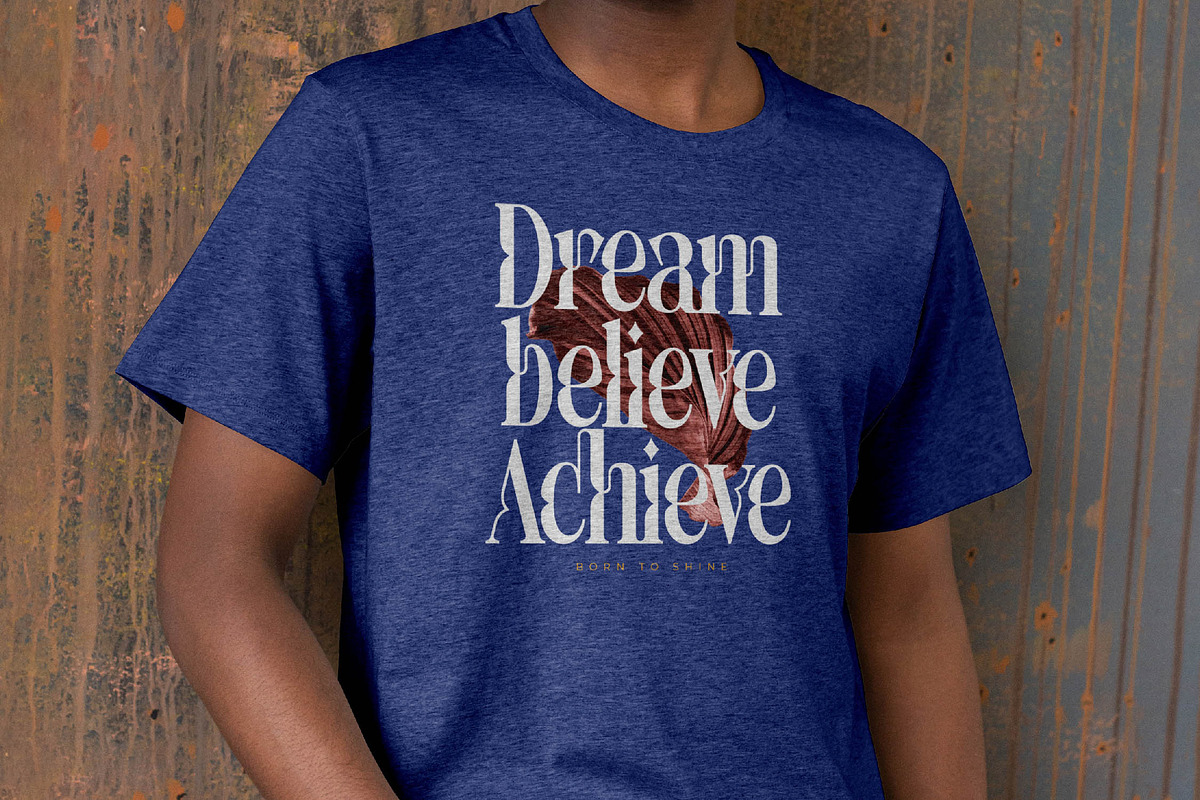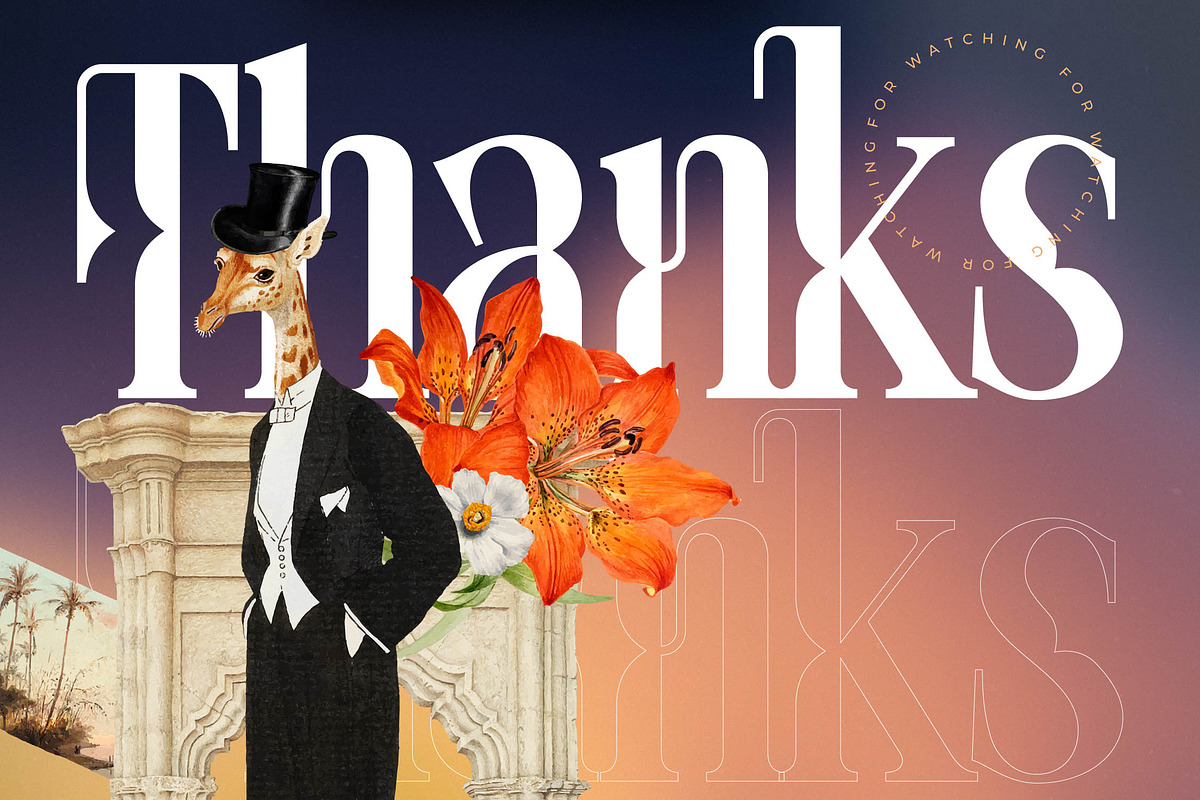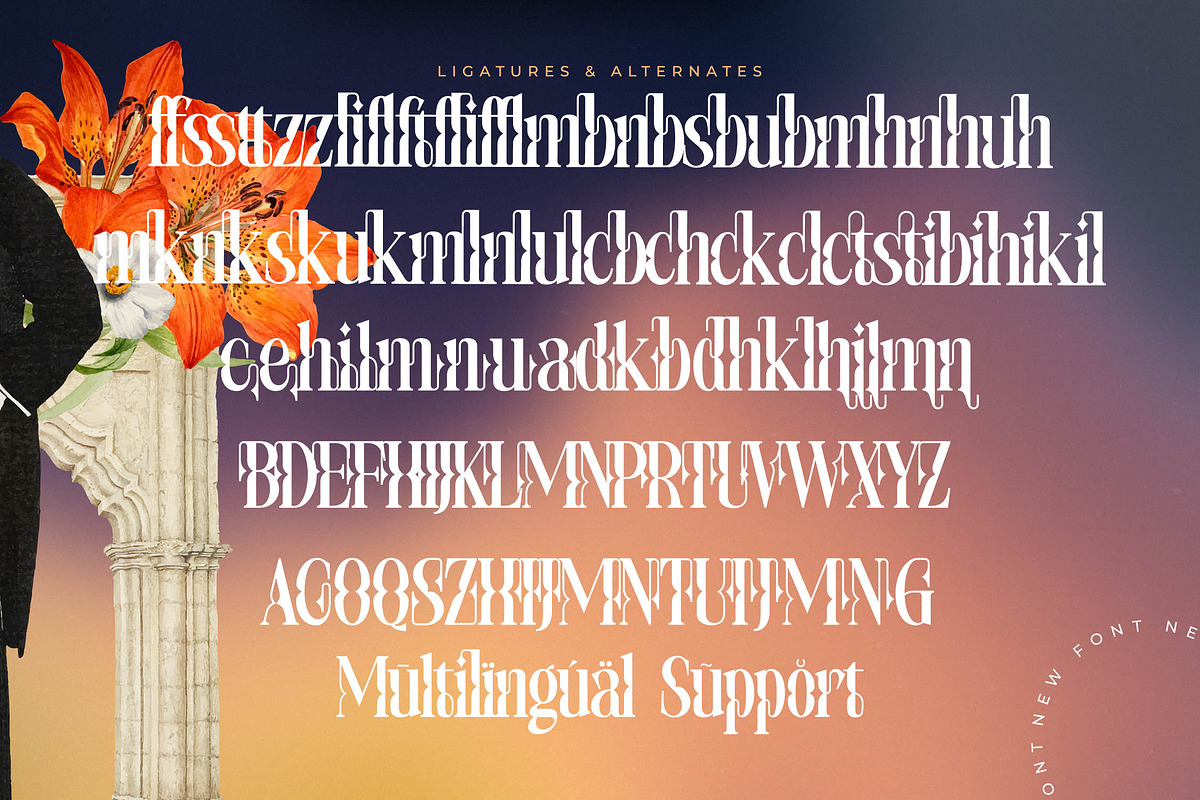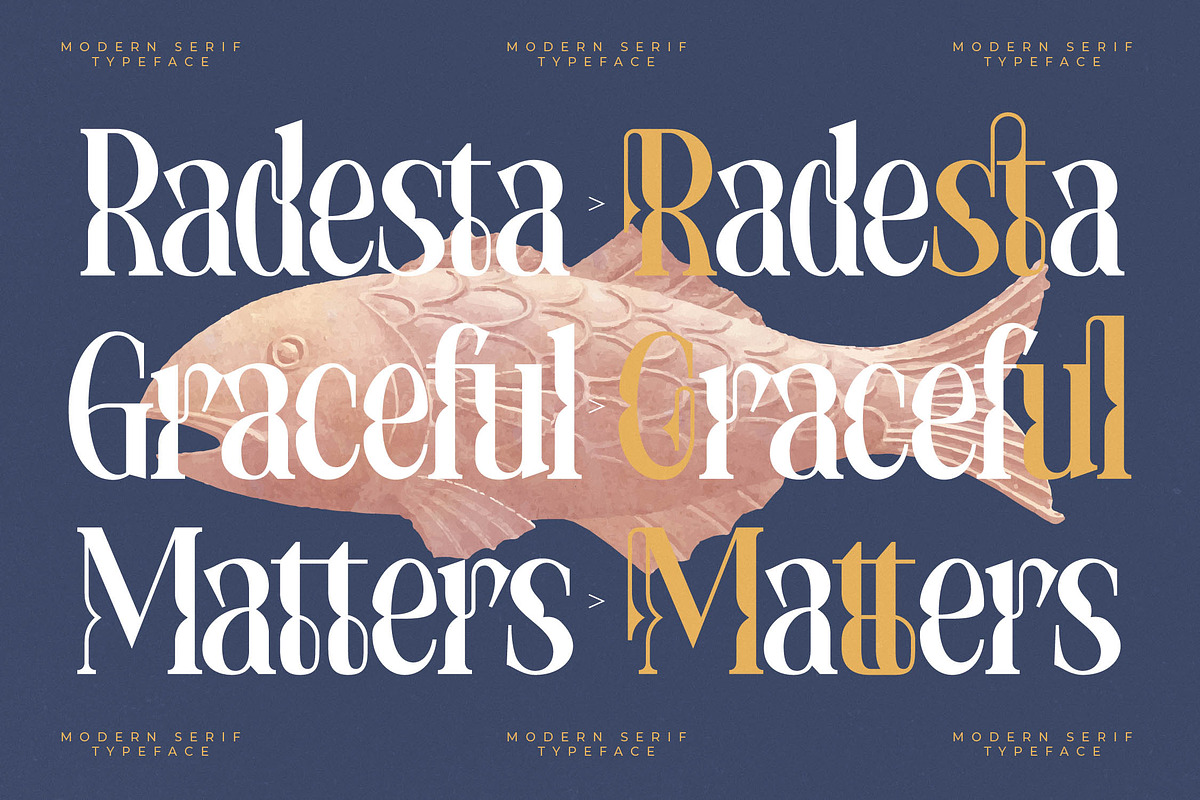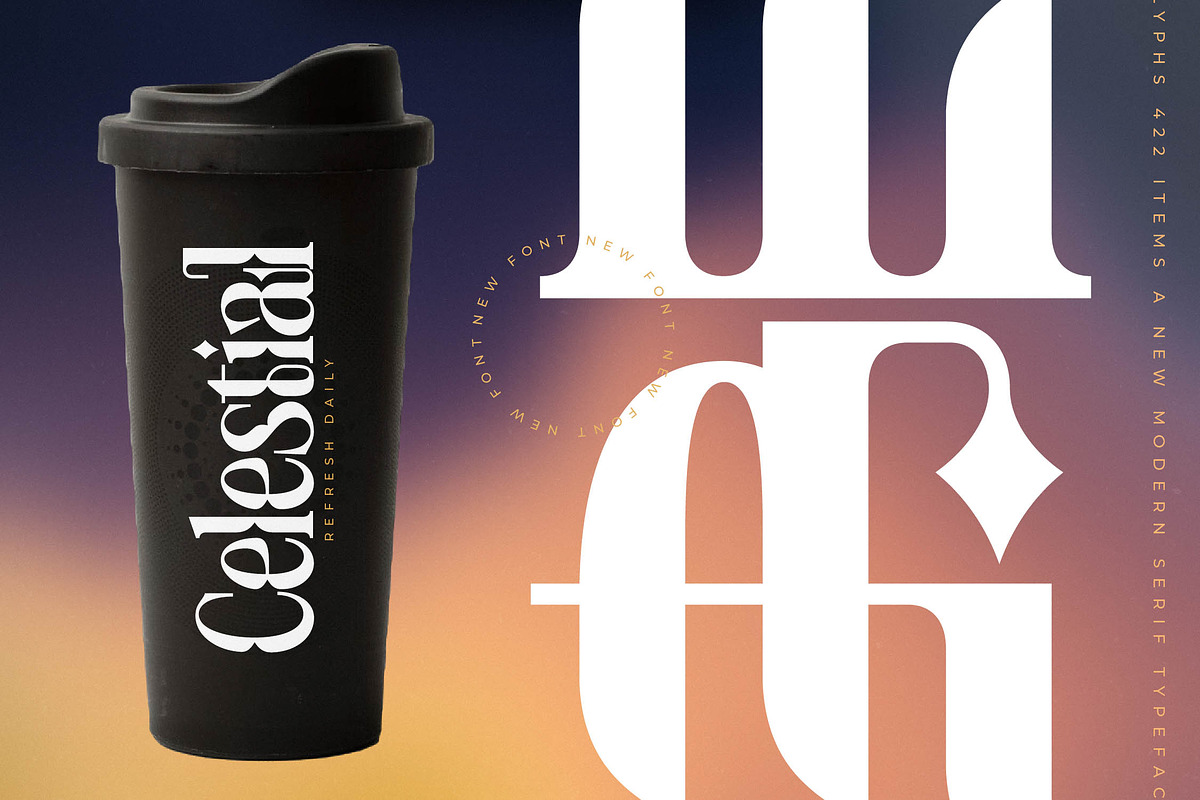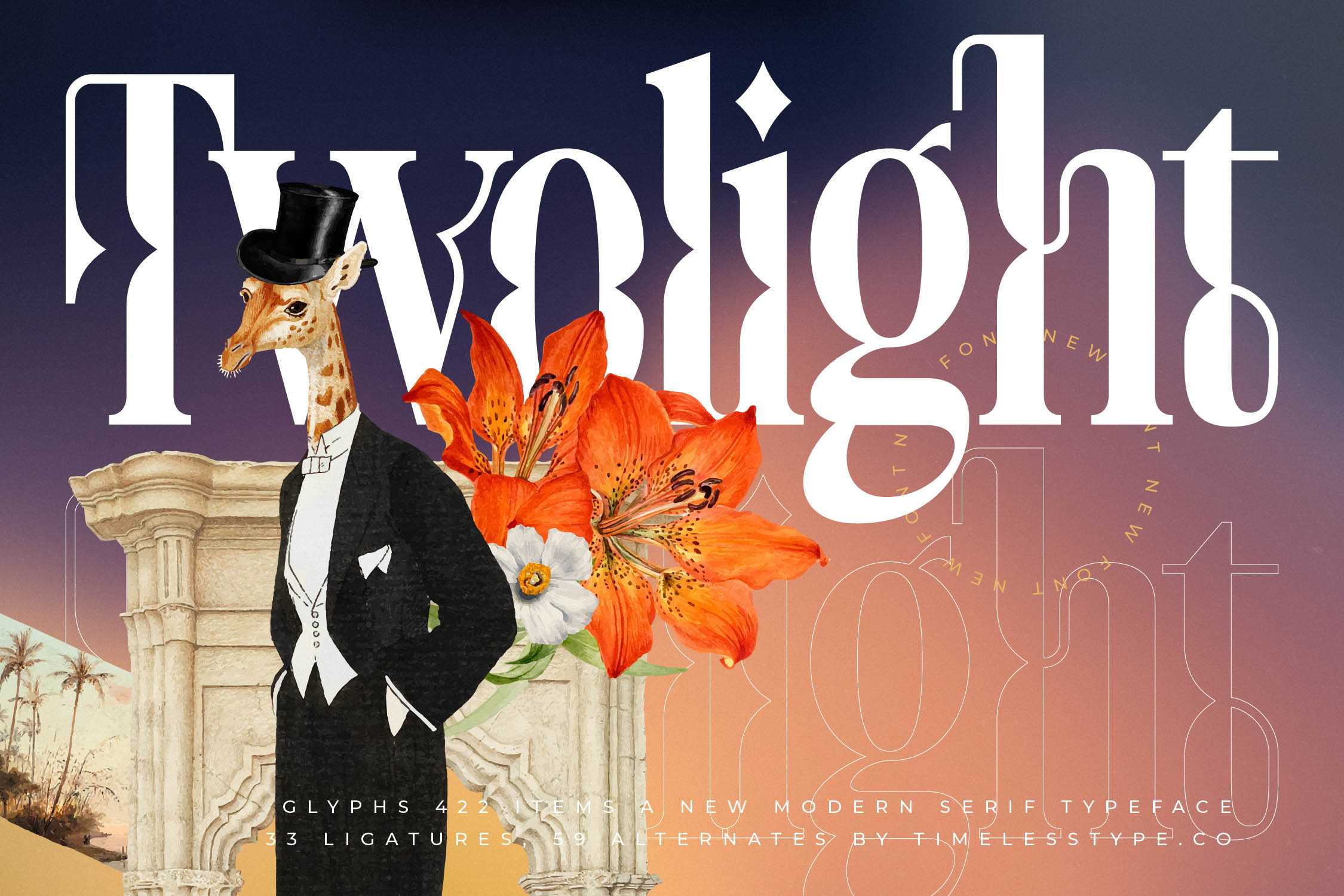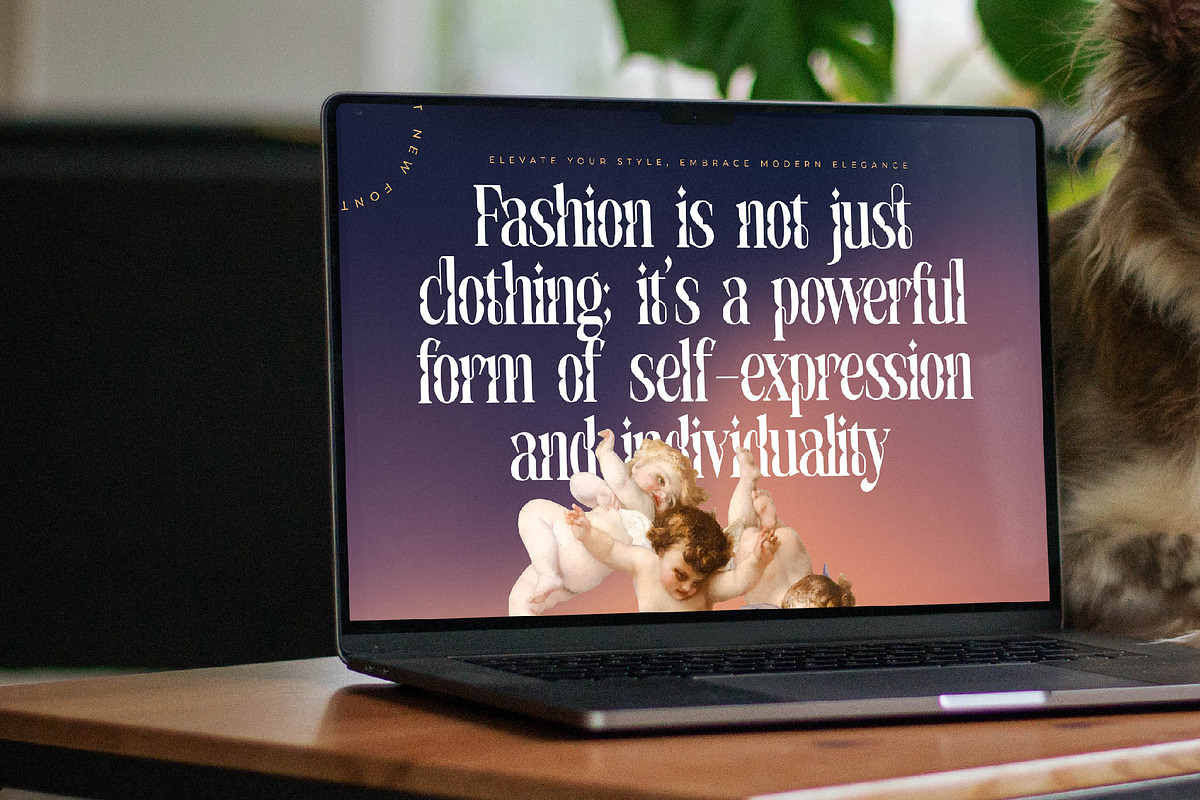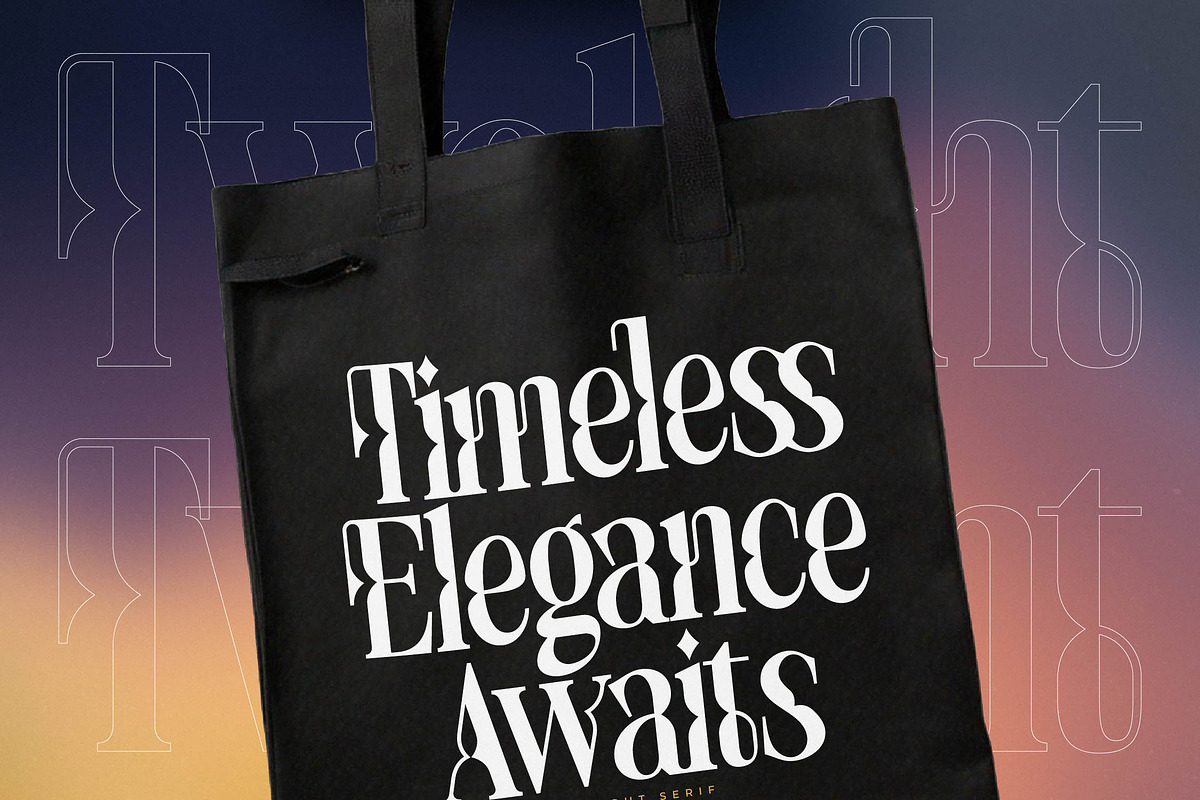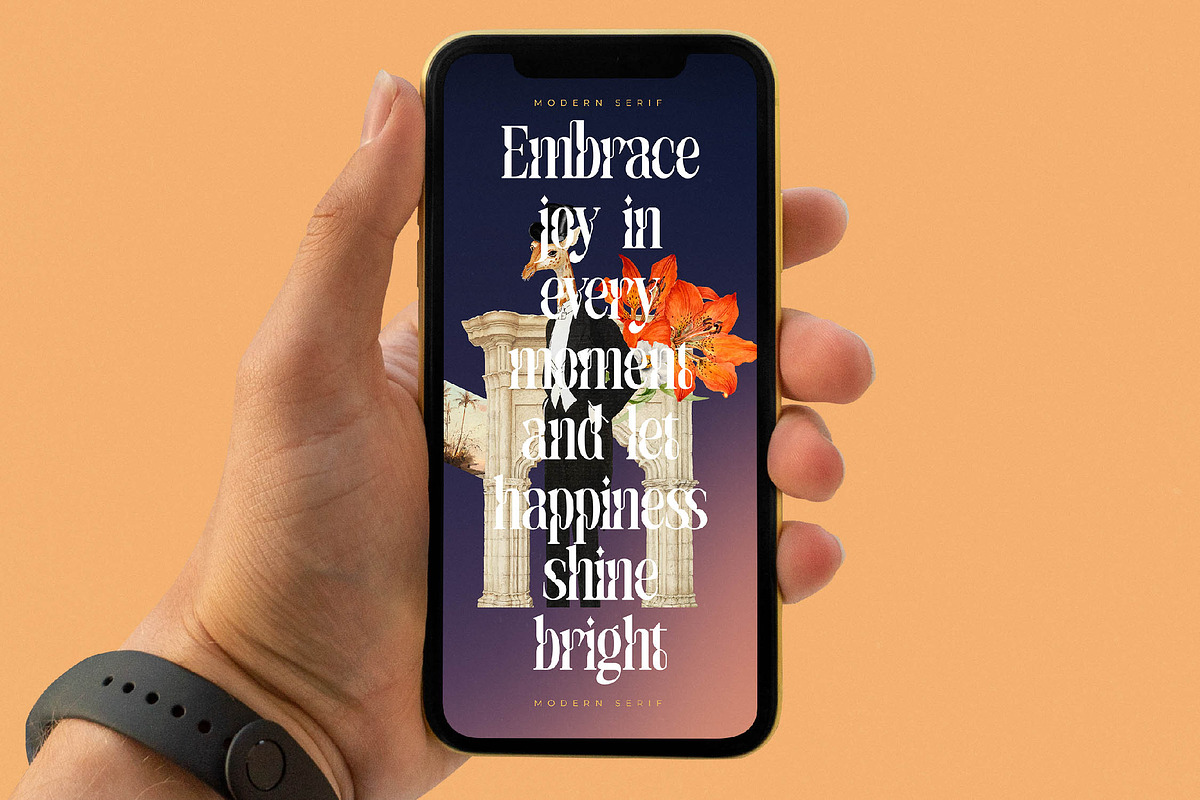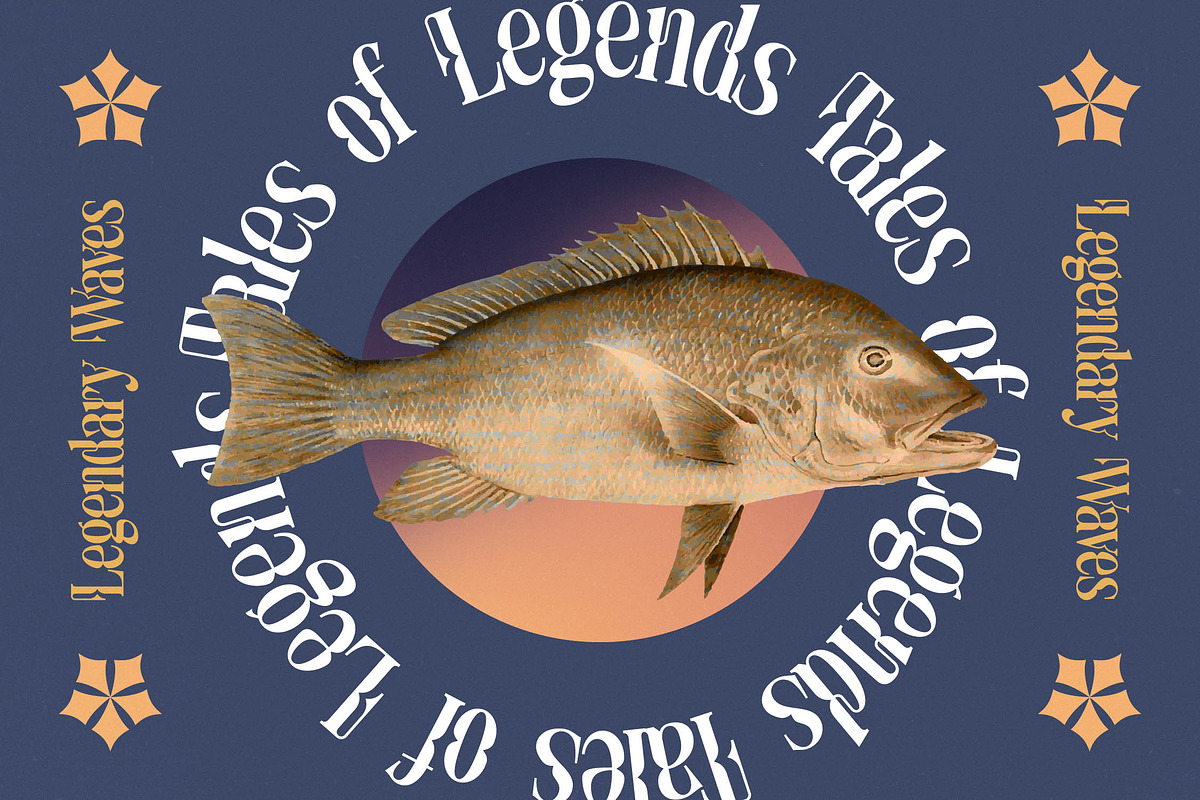
Twolight New Modern Serif Font
Twolight New captures the ethereal beauty of a shifting horizon, blending classical elegance with a surreal, modern edge. This typeface is more than a tool; it is a statement piece for designers who dare to dream and create beyond boundaries.
Inspired by the curious intersection of vintage architectural majesty and nature’s delicate intricacies, the design reflects a world where grandeur meets the avant-garde. It draws from the silent strength of stone pillars and the vibrant energy of blooming lilies to create a unique visual rhythm that feels both timeless and fresh.
Radiating a sense of high-fashion allure, Twolight New is a modern serif display that commands immediate attention through its luxury typography and high-contrast serif strokes. It serves as an essential editorial font for projects requiring a significant branding impact and a touch of the extraordinary that sets a brand apart.
Aligning perfectly with the current modern serif trend, this typeface addresses the growing demand for editorial display fonts that break away from traditional norms. Its character-driven typography allows designers to tap into the contemporary maximalist movement while maintaining a sophisticated, high-end aesthetic suitable for global markets.
This versatile typeface excels in high-end logo design and comprehensive branding systems where personality is paramount. From striking editorial layouts and luxury packaging to sophisticated wedding invitations and fashion lookbooks, it adapts seamlessly to any premium creative context where elegance is required.
The font package is technically robust, featuring a wide array of ligatures and unique alternates that provide endless customization possibilities for every character. It also includes comprehensive multilingual support and international characters, ensuring your message resonates globally across various languages and scripts with ease.
- Ligature 33 Alternate 59